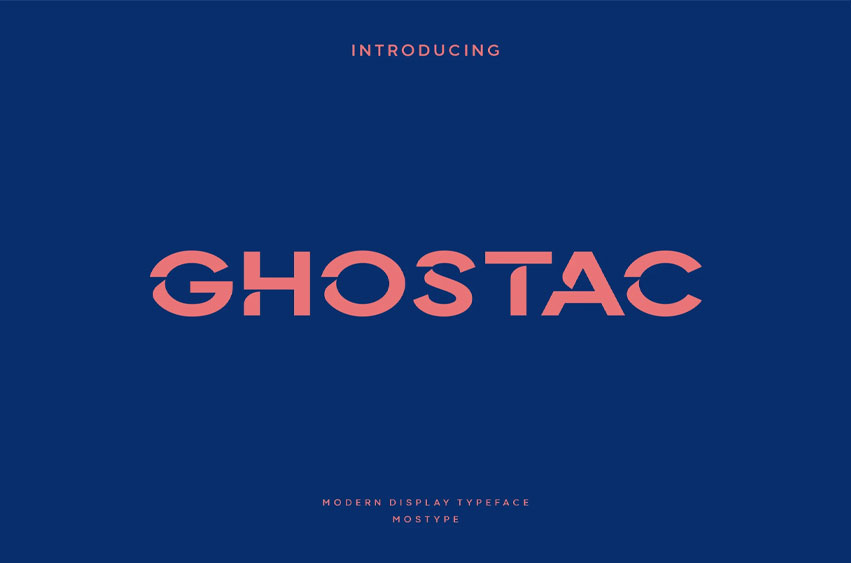
Ghostac Font Display a new generation Typeface created for building brand identity. Ghostac Typeface was created with the vision of attracting the audience to your brand. The finest details of this typeface are methodically and mathematically created.
Ghostac is created with all the tasks of a corporate font and also for the usage in a variety of projects, including branding, logo, title, headline, banners, posters, screens, display, digital ads, and everything else. We are putting a lot of effort into this font as a long-term project.